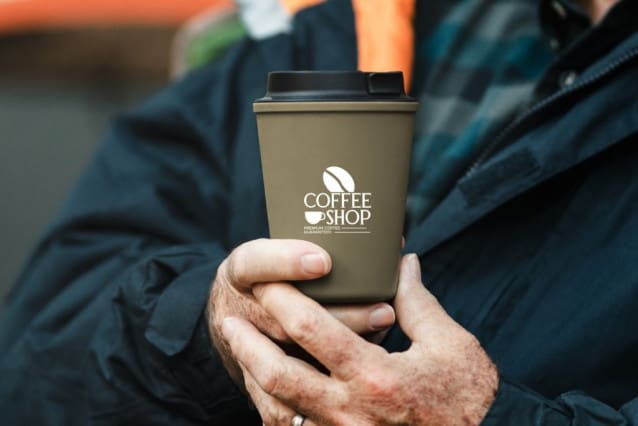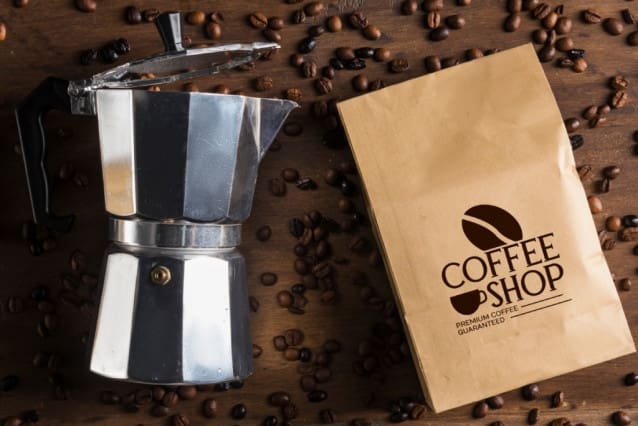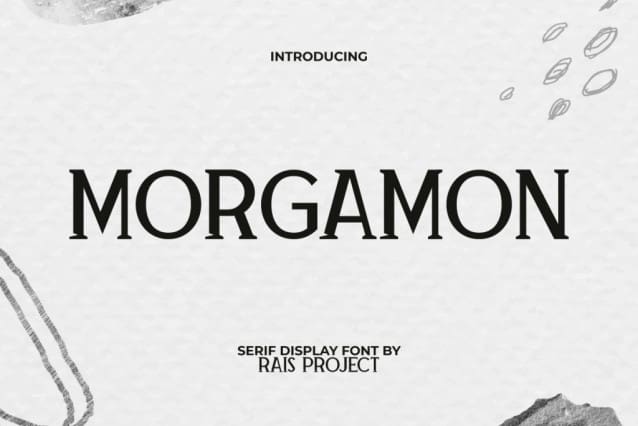
Morgamon Font
Morgamon Font is an attractive manly serif display font. This font is similar to the Serif type in general, but made unique to make it an interesting differentiator. It will work good in many designs, such as brand image, custom design, invitation, label, menu, poster, product packaging, quote, signage, stationery, web, and more!
Morgamon Font includes a full set of ALL CAPS for Uppercase and Lowercase Letters, Numerals, and large range of Punctuation. This cool font will be suitable for various industries, such as advertising, barber shop, body shop, cafe, event or festival, fashion, men stuff, photography, printing, publishing, restaurant, sport, etc.